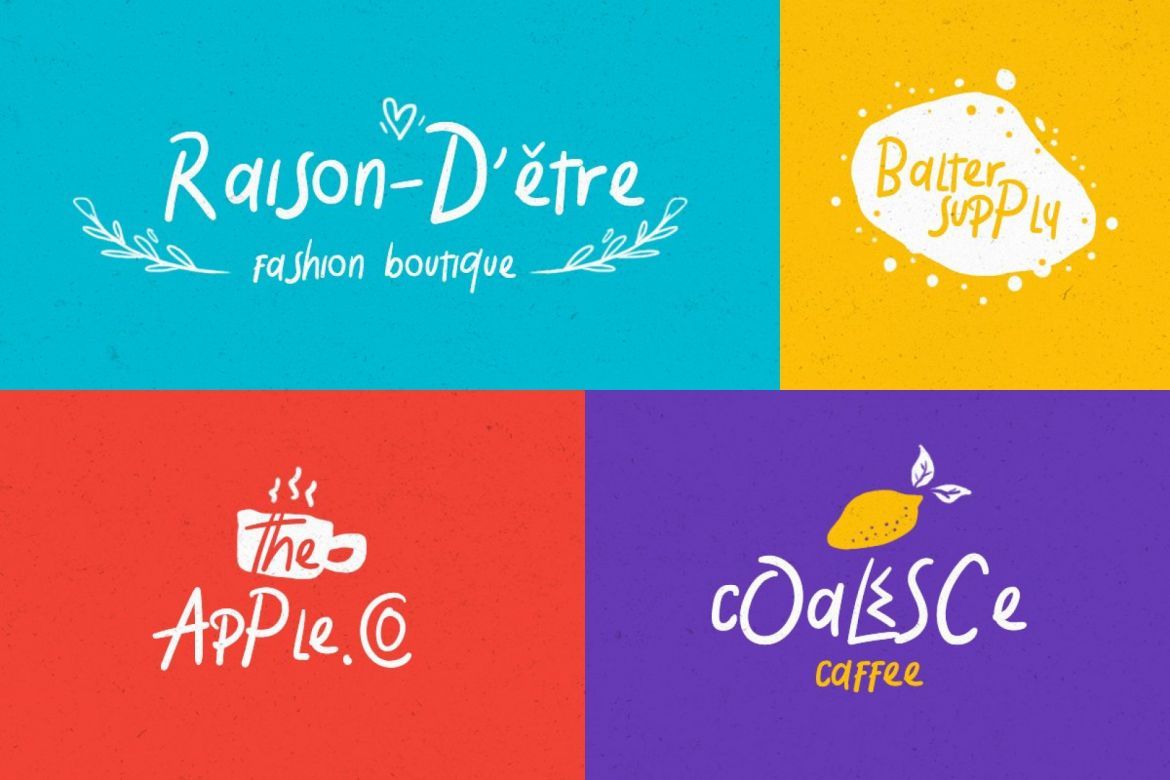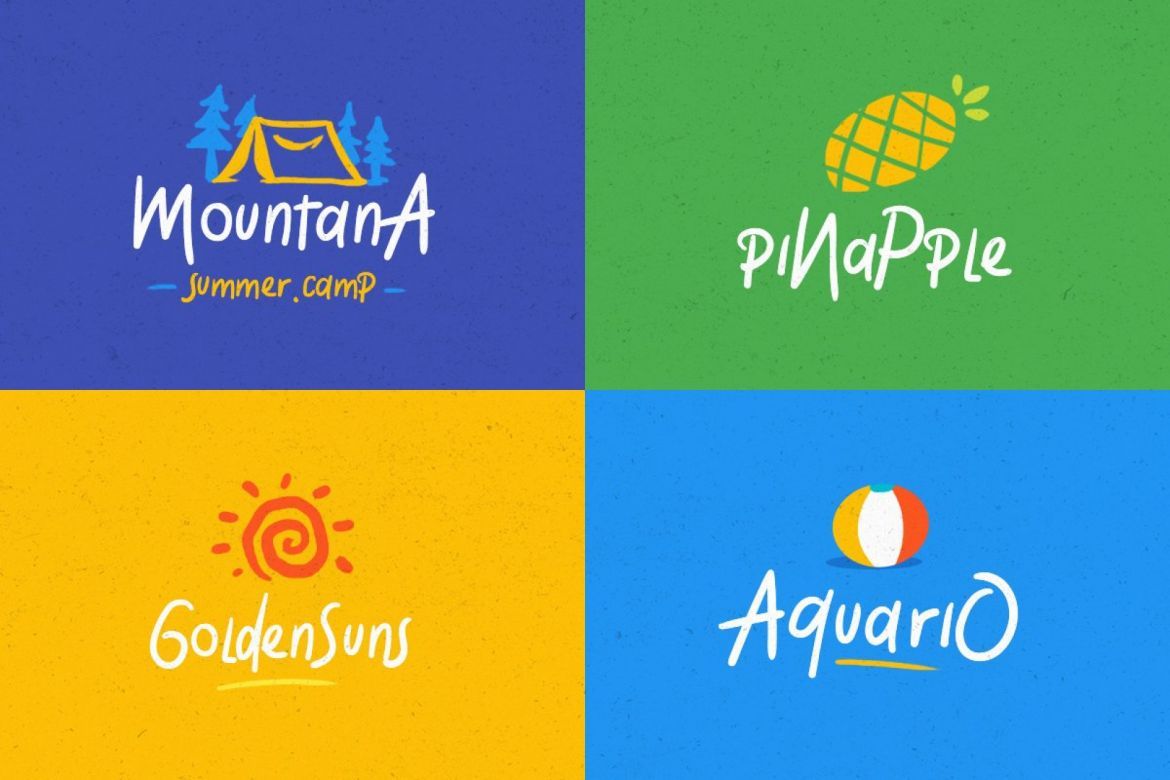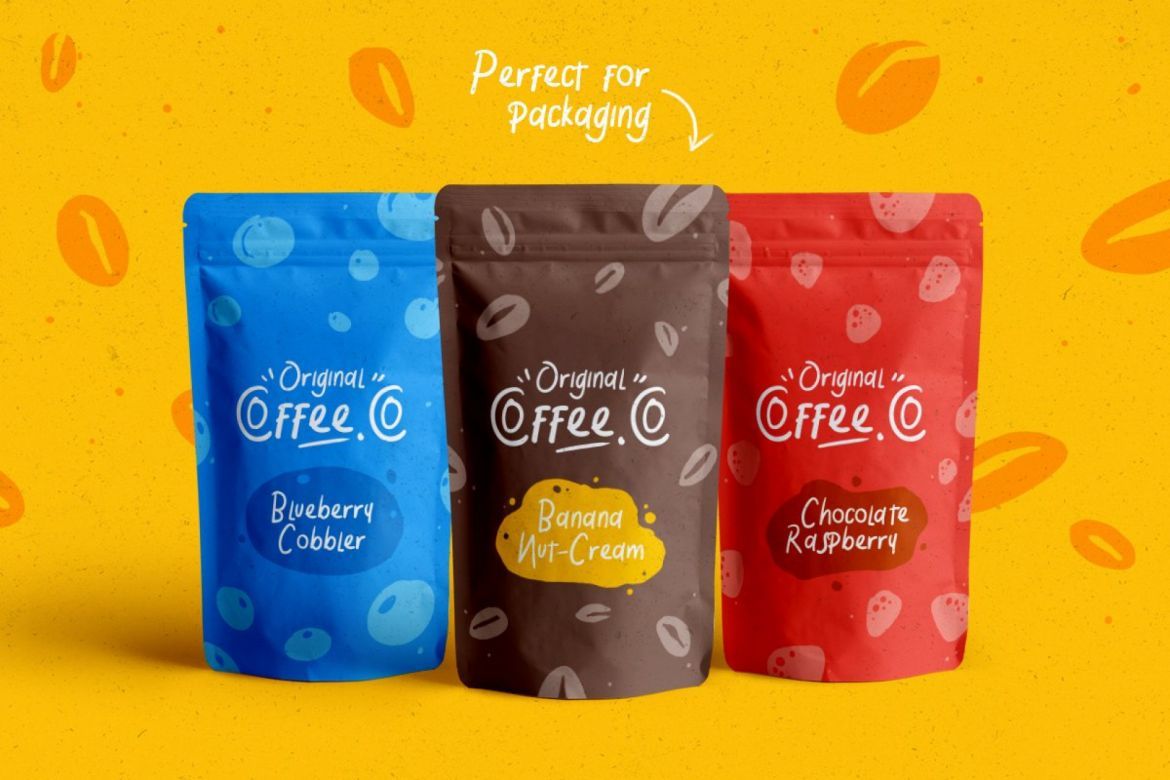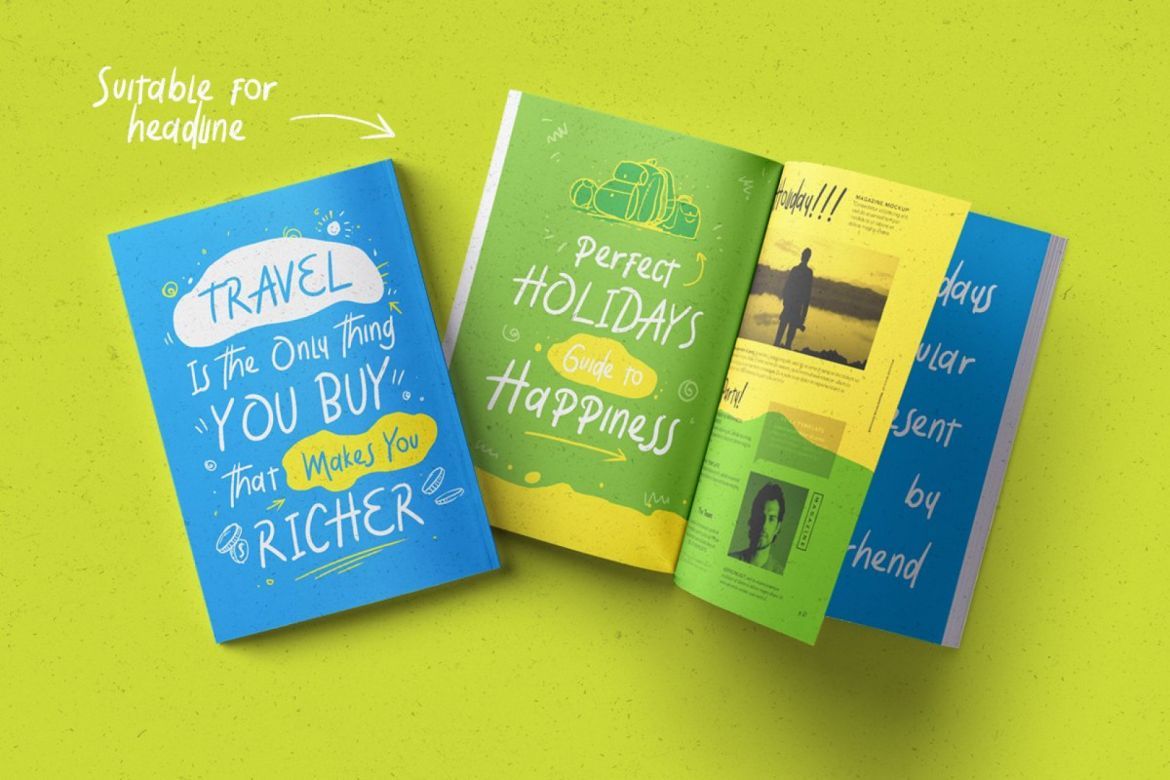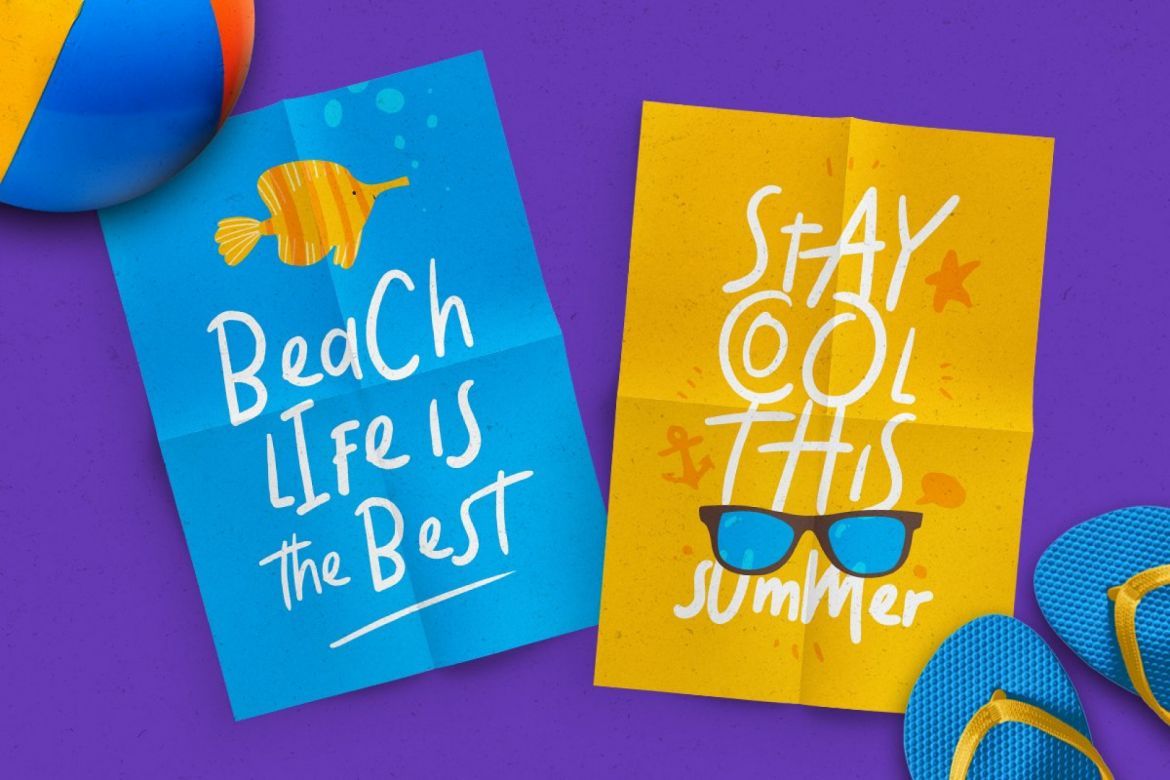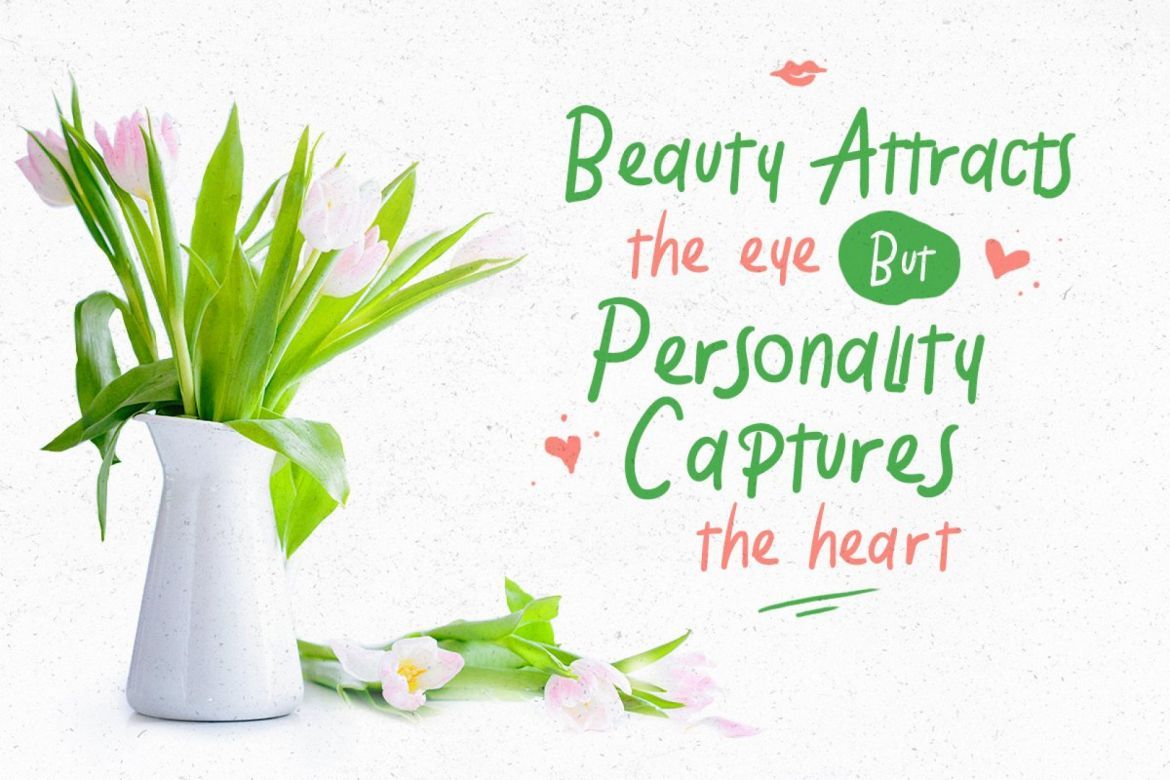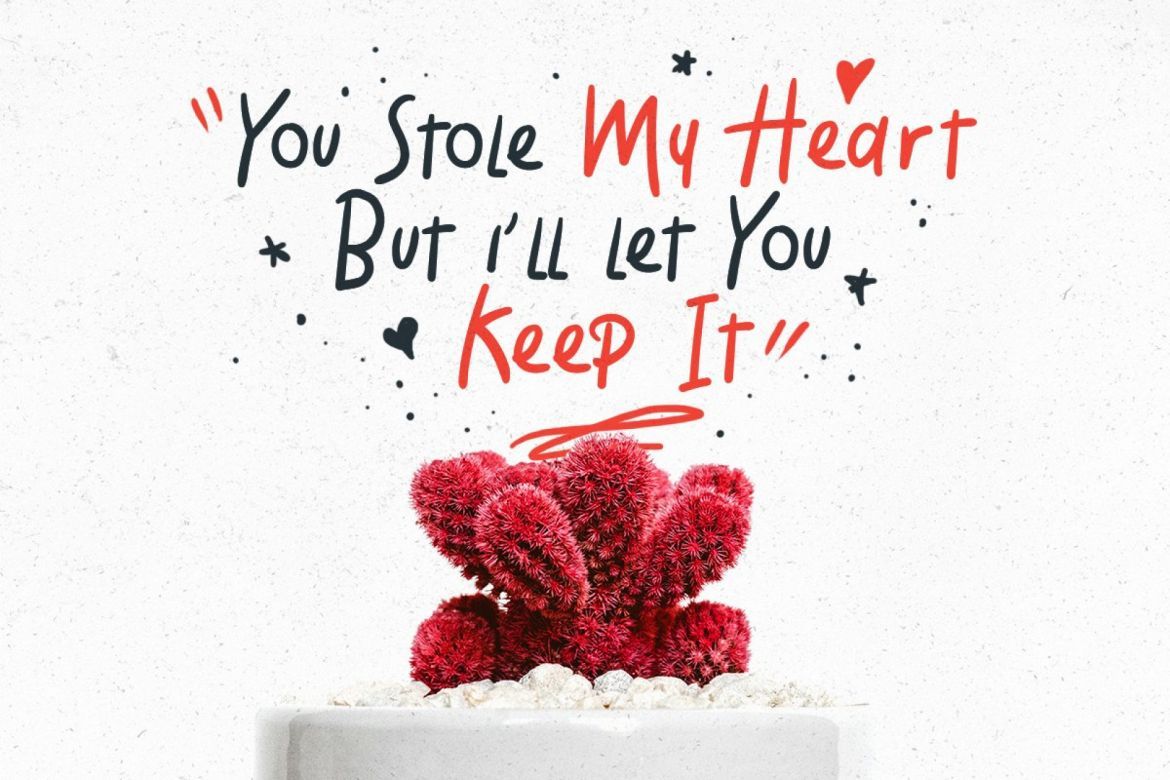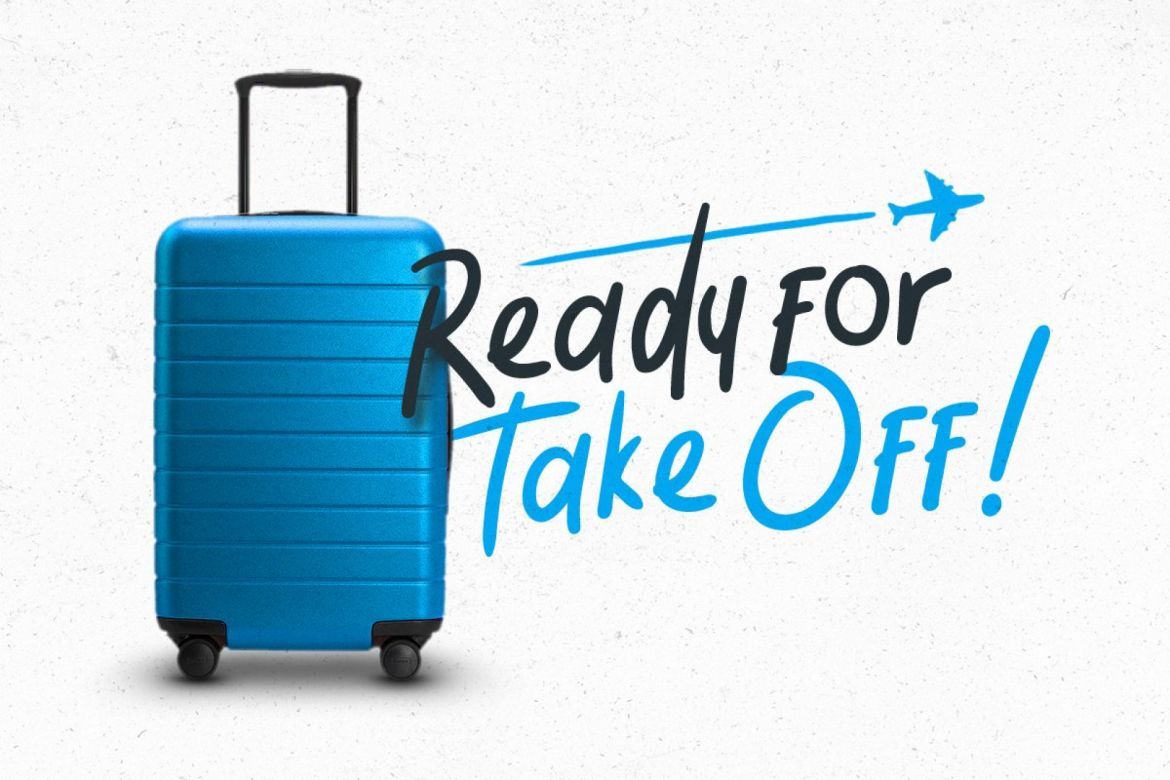
Holiday Font
• cute but casual typeface that is suitable for use in a fun and playful design.
• this font is present in uppercase, lowercase letters, punctuation, symbols & numbers, alternative sets of styles, binders, etc.